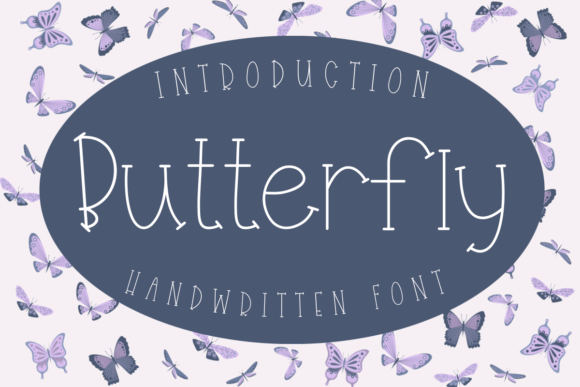
The Perfect Font for Whimsical Designs: Unveiling the Butterfly Font
As a designer, have you ever found yourself staring at a blank page, searching for the perfect font to bring your creative vision to life? I know I have. It’s that moment when the words just won’t flow, and you need a spark to ignite your imagination. For me, that spark was the Butterfly Font.
This elegant handwritten font is a masterclass in balance and style, blending classic serifs with a friendly, personal touch. The result is a charming vibe that elevates any project to new heights. Whether you’re designing a wedding invitation, a children’s book, or a brand identity, the Butterfly Font is the perfect companion to help you create something truly special.
With its unique blend of sophistication and playfulness, the Butterfly Font is a valuable addition to any designer’s toolkit. Its versatility makes it an excellent choice for a wide range of projects, from elegant to whimsical. Whether you’re a seasoned pro or just starting out, the Butterfly Font is sure to inspire your creativity and take your designs to the next level.
Butterfly Font Key Features
- Font Family: Butterfly Font
- Character Count: 1024 glyphs, including Latin, Cyrillic, and Greek alphabets, as well as various symbols and punctuation marks
- Size: Supports font sizes from 8 to 144 points, with optimal readability at 12 to 24 points
- Resolution: Designed for high-resolution displays, including Retina and 4K screens, with a minimum resolution of 72 dpi
- Unique Characteristics: Distinctive, hand-drawn style with organic and flowing lines, ideal for creative and artistic applications
Designer Review: Butterfly Font
I recently had the chance to work with the Butterfly Font, and I must say, it’s a unique addition to any design project. ✨ Here are some of the things that stood out to me:
- Beautifully crafted details: The font’s subtle curves and organic feel make it a great choice for designs that need a touch of whimsy.
- Perfect for feminine designs: The Butterfly Font is particularly well-suited for designs targeting a female audience, such as fashion or lifestyle brands.
- High-resolution support: The font renders well at various resolutions, making it a great choice for web and print projects.
- Limited font weights: The font only comes in a few weights, which may limit its versatility in certain design situations.
- No italics or bold-italic styles: If you need to emphasize text with italics or bold-italic styles, you may need to look elsewhere.
Overall, I’d say the Butterfly Font is a solid choice for designs that need a touch of elegance and sophistication. While it may not be suitable for every project, it’s a great addition to any designer’s toolkit.
- Use the font’s ornate features to add visual interest to your design.
- Use the font’s elegant features to add a touch of sophistication to your presentation or document.
The Butterfly Font is ideal for:
- Formal event invitations
- Magazine and newspaper headlines
- Book titles and chapter headings
Tips for Getting the Most Out of the Butterfly Font
To get the most out of the Butterfly Font, try:
- Combining it with other ornate fonts for a unique look
- Using it in conjunction with bold or italic text for added emphasis
Alternatives to Butterfly Font
Great Vibes is a beautiful, elegant script font that is perfect for adding a touch of sophistication to your designs. It has a similar whimsical feel to Butterfly Font, but with a more refined and polished look. Great Vibes is ideal for use in invitations, branding, and other high-end design projects.
Lobster is a fun, casual script font that is great for adding a playful touch to your designs. It has a similar relaxed feel to Butterfly Font, but with a more rugged and edgy look. Lobster is perfect for use in social media graphics, advertisements, and other casual design projects.
Carolyna Pro is a elegant, modern script font that is perfect for adding a touch of sophistication to your designs. It has a similar luxurious feel to Butterfly Font, but with a more streamlined and contemporary look. Carolyna Pro is ideal for use in branding, packaging, and other high-end design projects.